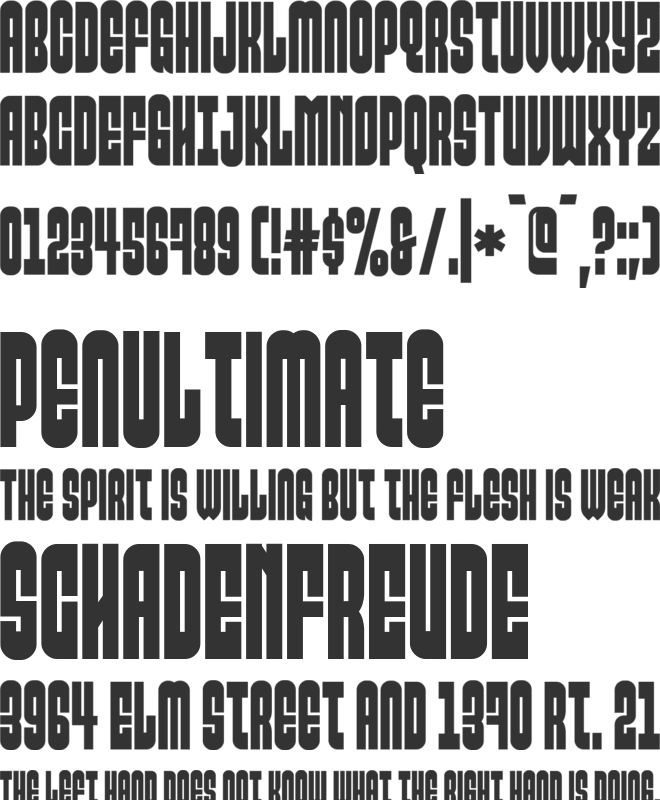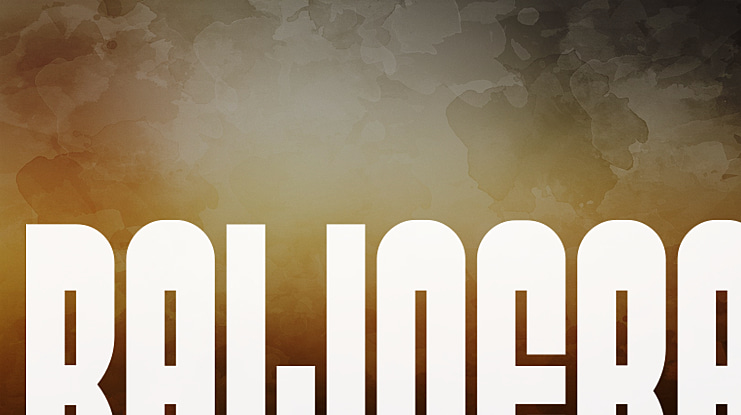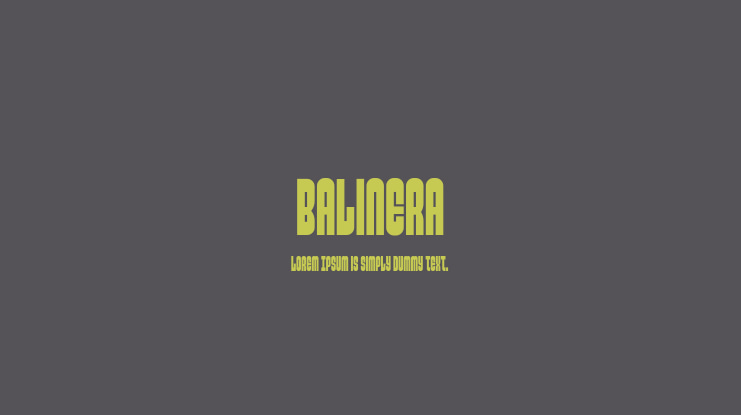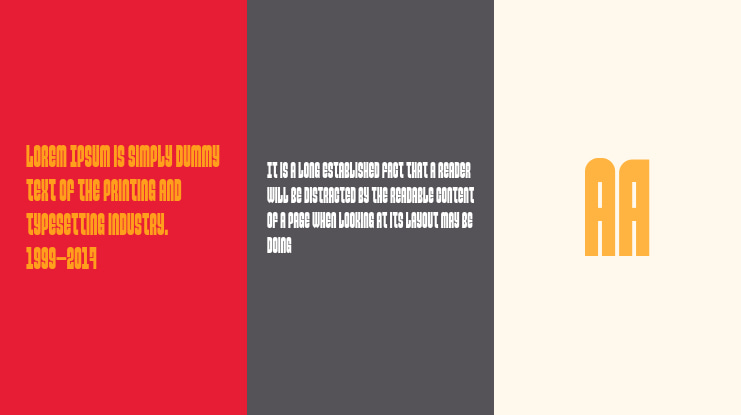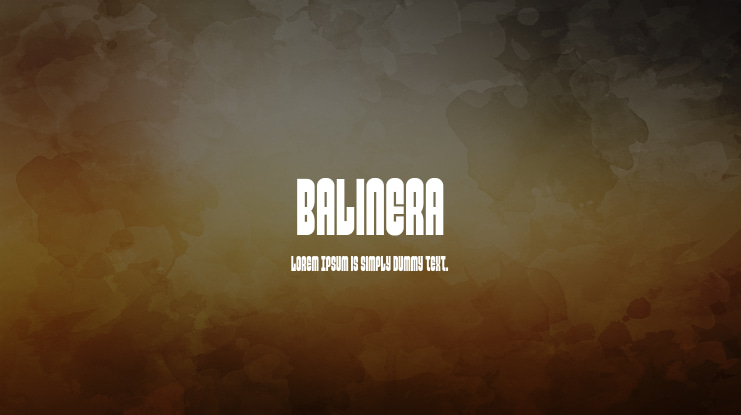
Balinera Font
Andres Moreno | NimaType
Create your own unique poster using Balinera, a quirky black and condensed typeface perfect for short statements, whether it is an inspirational quote or a strong political motto. You can pair it with your favorite script or brush font to create a more dynamique layout.
Use uppercase/lowercase for alternate characters. Lowercase is softer and rounder.